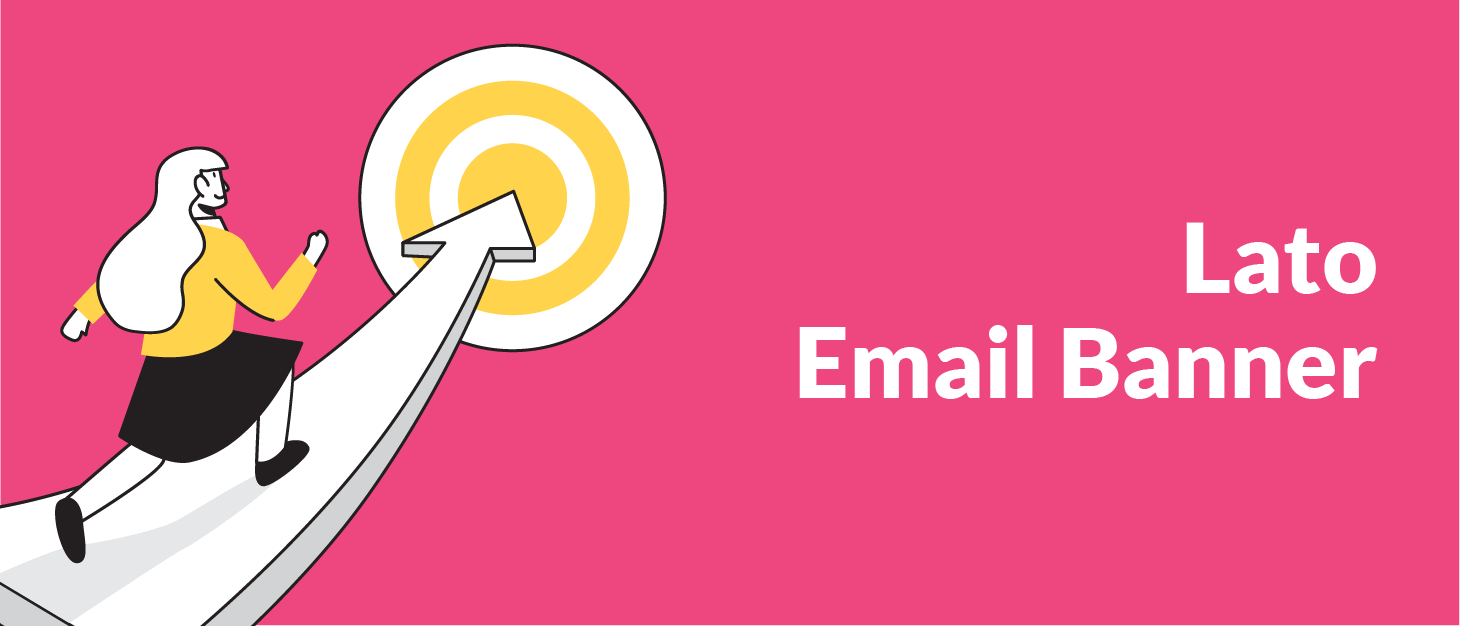
Let’s Choose the Right Email Font for Your Business
An email font can make or break the design of your newsletters. Do you know how to choose the right one? Want to see some options? You’re in the right place!
Which is the best font for emails? It’s not a simple question to answer. However, we can offer 7 great tips to help you choose the right email font for your business!
Have you ever confused one letter for another when reading something? So that you had to do a double-take for a moment to figure out what's being said? Take a look at the following image:
Dr. Brown’s choice of fonts seems to acknowledge the poet’s verses!
Ogden Nash’s poem, “This is Going to Hurt Just a Little Bit”, has these lines: “Because some tortures are physical and some are mental, but the one that is both is dental.”
Does the caption, in red, within the image read “I love Cow” or “I love Coco”, or something else altogether?This is nothing but just another typical example of a bad font choice. And organizations from small businesses and startups to big enterprises can make this mistake.
The font you choose in your designs and marketing collaterals matters a lot, especially when it comes to digital and email marketing. Consumers' perceptions of your brand are influenced by font style and font size. Your typeface can help reinforce a specific theme, add to the overall feel and personality of work, and make or break your message, thus significantly impacting your business.
Our discourse is limited to choosing the perfect fonts for emails only in this post. It would, however, definitely give you a general idea of the factors you must consider before choosing your fonts for other platforms as well.
7 Tips to pick the best font for email
Which is the best font for emails? There are several factors to answering that question. Still, we won’t leave you in the dark. Here are 7 tips to help you find the best font for email campaigns for your brand.
1. Choose fonts that line up with your brand image
Fonts exist in a variety of styles and sizes, and the way letters are displayed in email clients, including their shape and spacing, can have an influence on your audience. The typeface you select has its own personality and offers a distinct message. So if anything doesn't seem quite right, or doesn't match your messaging or overall brand image, potential prospects will notice and be repelled.
Take the following example:
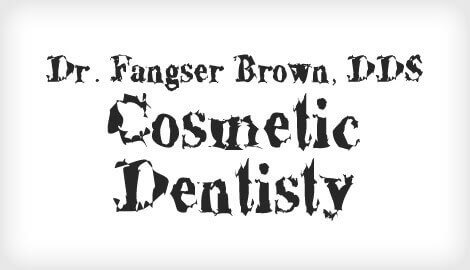
Therefore, fonts that match your message and brand image attract your prospects and help maintain recipients' attention and increase click-through rates.
2. Legibility is more important than beauty
Sometimes you can become so obsessed with designing visually appealing emails that you compromise on clarity. And the result is an unclear, unreadable email that a recipient closes at once.
In 2010, Norbert Schwarz and Hyunjin Song conducted an experiment on font readability. They concluded that reading a fancy typeface takes roughly twice as long as reading a standard, easy-to-read font:
When it comes to legibility, fonts are divided into two categories: serif and sans serif. Fonts with a tiny line at the end of each character are known as serif fonts. Times New Roman and Georgia are the most common serif fonts.
Those fonts without a decorative line at the end of each symbol are known as sans serif fonts. Arial, Trebuchet MS, and Helvetica are the most popular sans-serif fonts safe for emails.
Various sources claim that serif fonts are best for emails. But the fact that emails are exclusively seen online on desktop or mobile displays, sans serif fonts are the best. On the screen, sans-serif characters are easier to read.
3. Choose fonts that align with the type of message
Which is the best font for emails? It greatly depends on the type of message you want to send. Although your brand style guide should provide a general direction, you can experiment a bit depending on the type of email campaign.
Do you have a flash sale? The best email font might be something big and bold. Are you making a big company announcement? Stick to something more traditional to ensure you don’t come across as unprofessional.
4. Choose an optimal email font size
Choosing the right email font size is almost equally as important as picking the right font. One powerful reason for that? Most people read emails on their mobile devices nowadays - a whopping 85%!